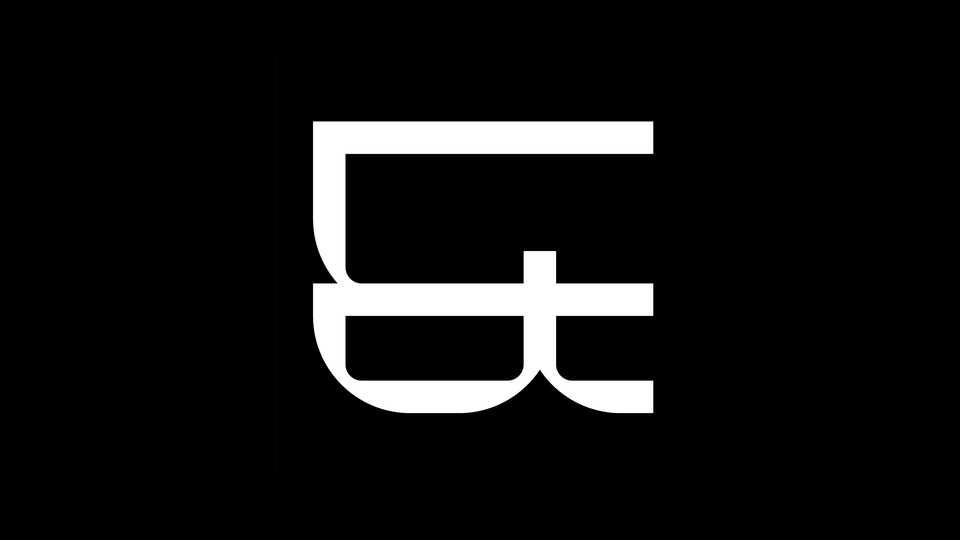
Download Billos font, a custom display font with geometric forms and unique shapes. Billos font works best for posters, headlines, short messages and other artworks.
Designer: Charlie Le Maignan